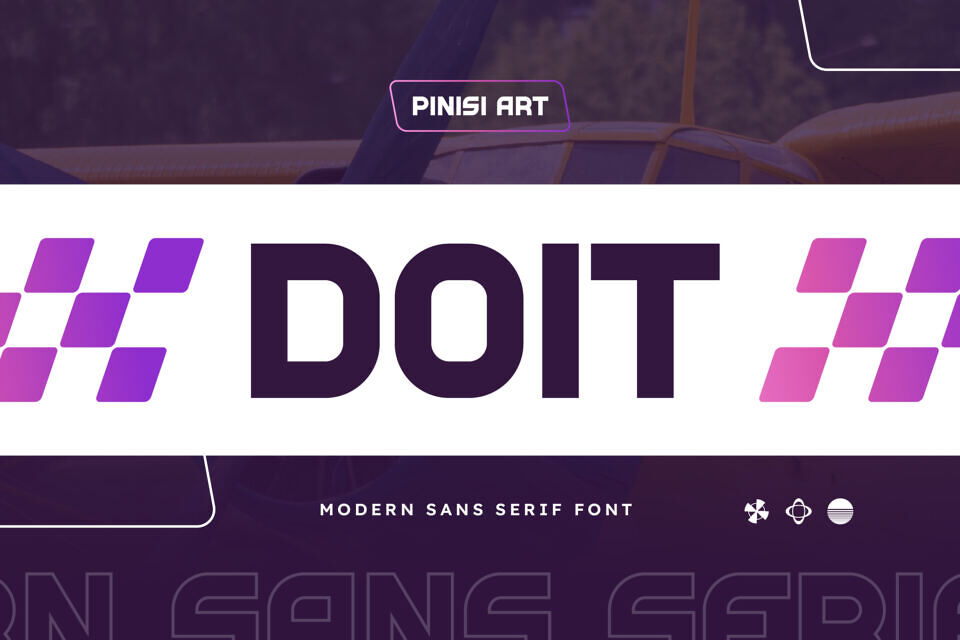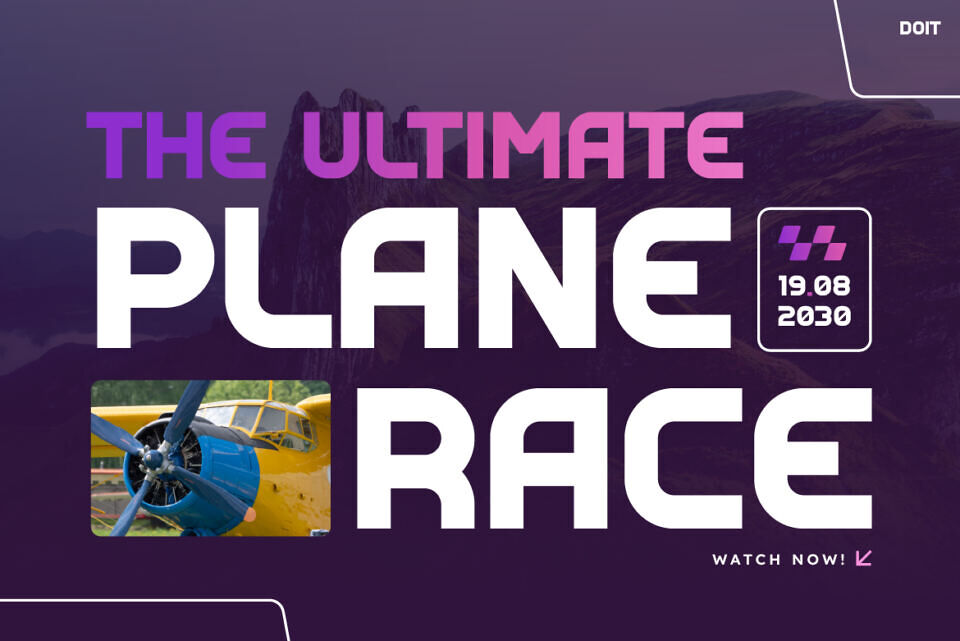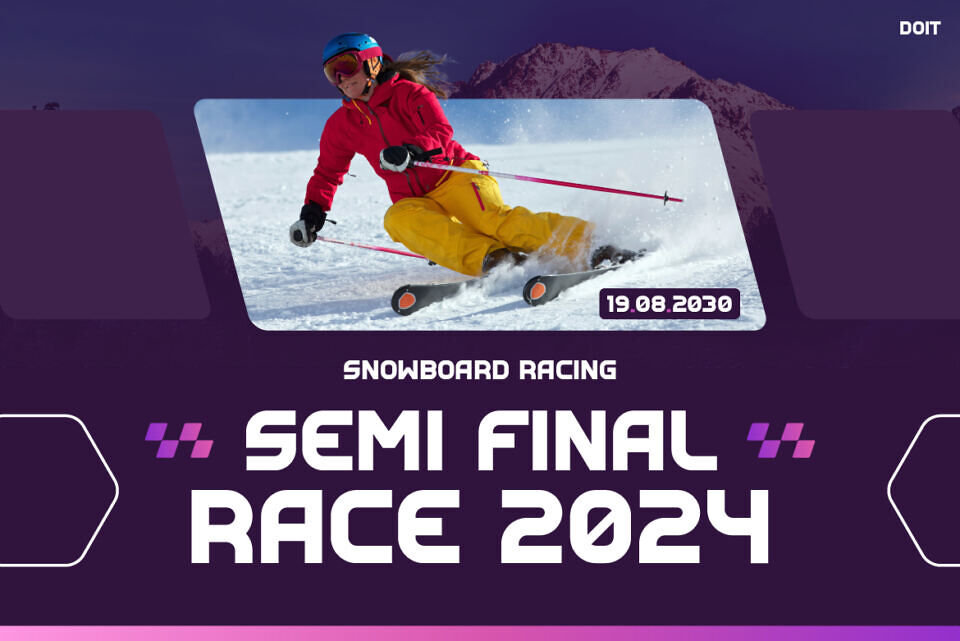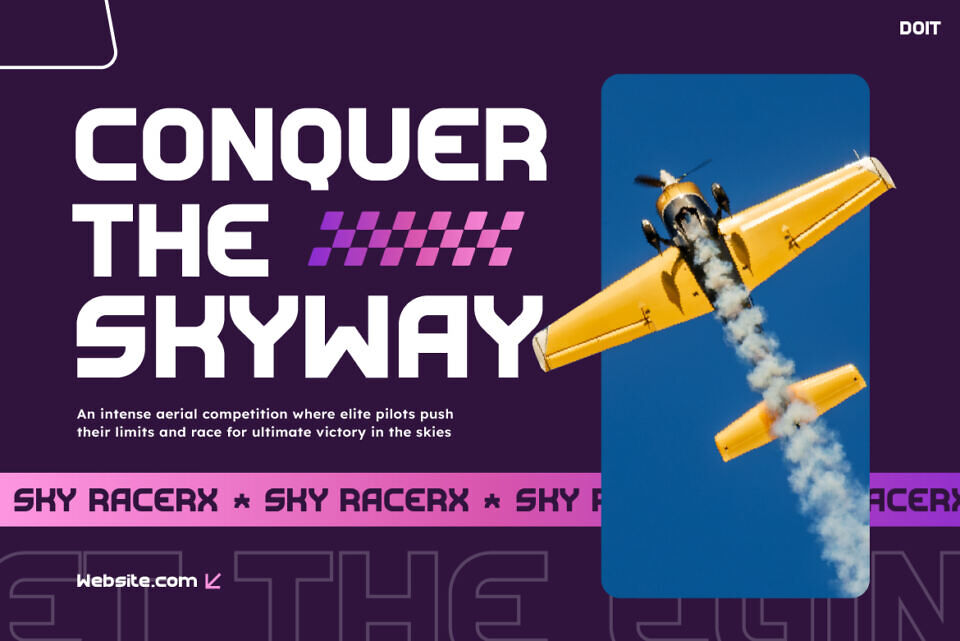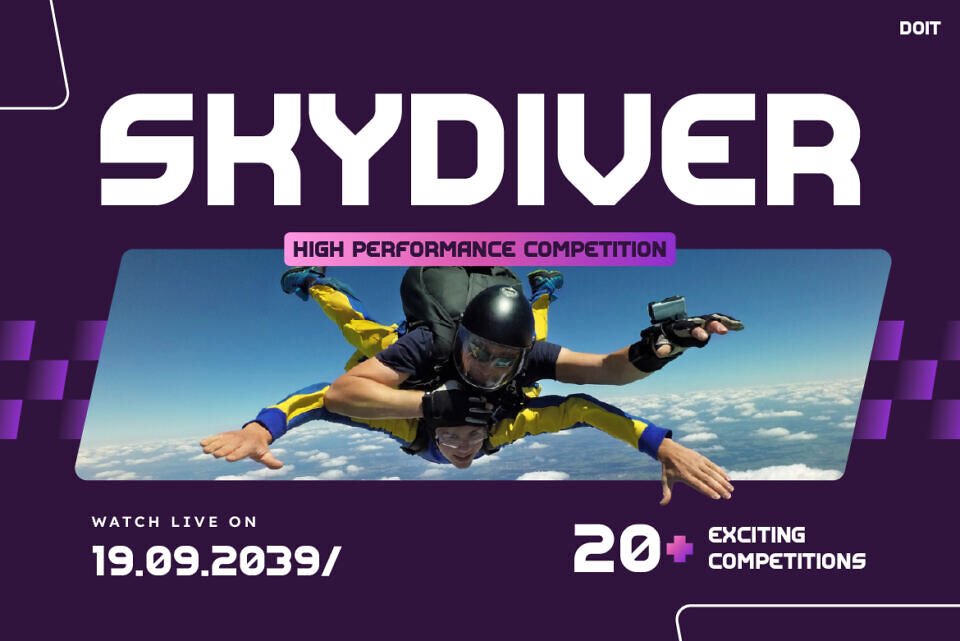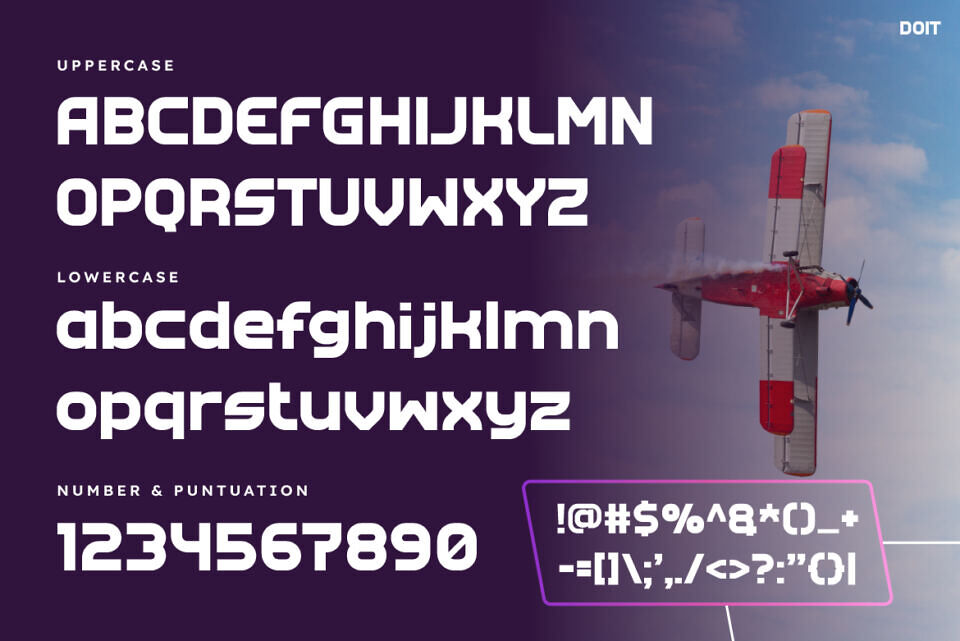
DOIT is where speed meets bold creativity. This futuristic display typeface doesn’t just look powerful — it feels alive. Its aerodynamic shapes and geometric precision capture the thrilling energy of motion, while its sharp lines bring an unmistakable sense of power and confidence. Moreover, each curve is carefully crafted to convey adrenaline and momentum, making it perfect for brands that want to express action, courage, and innovation.
From racing banners to esports visuals, DOIT brings your designs to life with a rush of movement. It blends modern aesthetics with sporty elegance, creating a typeface that feels both professional and exciting.